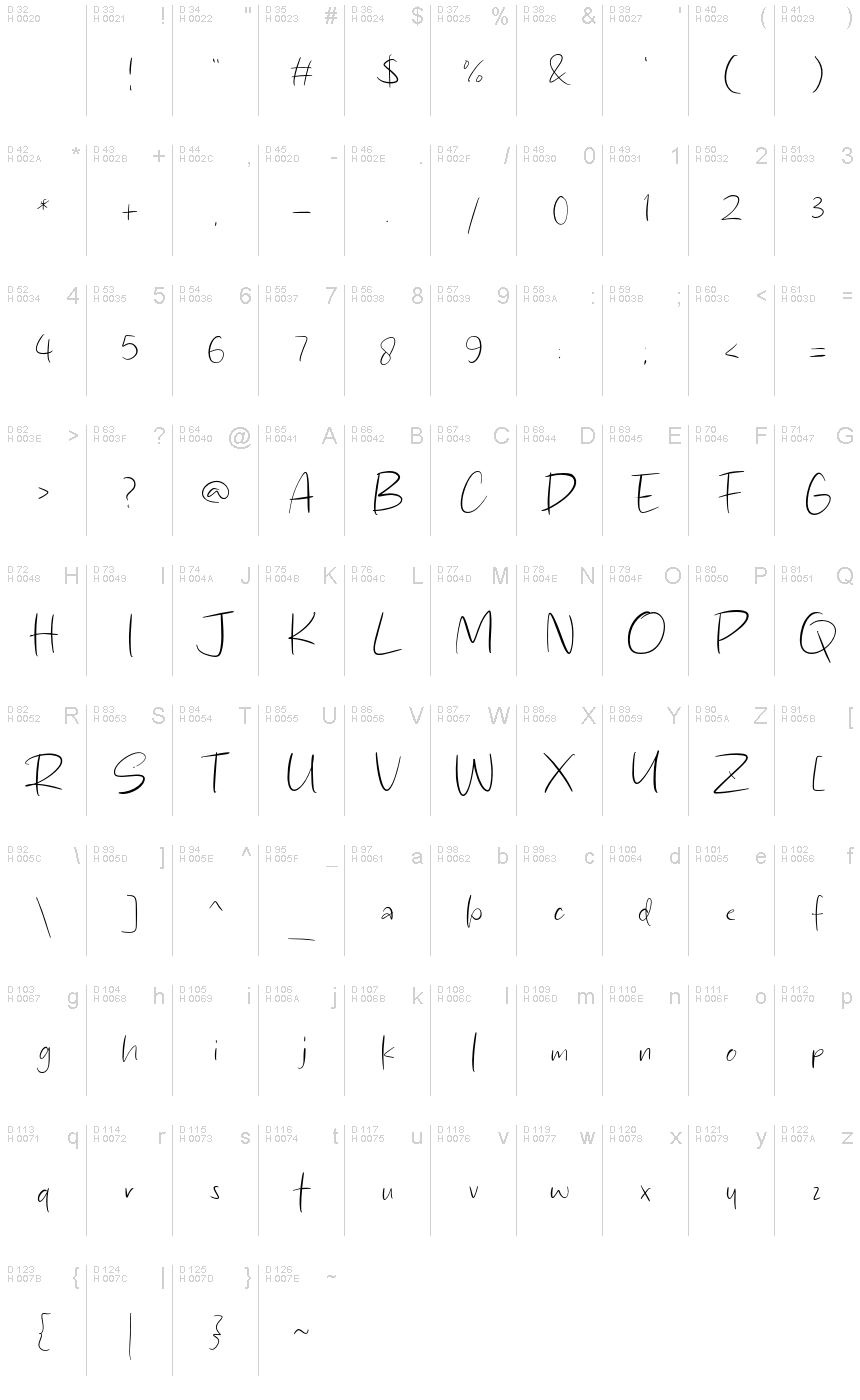
Coal Straight
Coal Straight, a captivating handwritten font crafted by MJType, exudes a captivating sense of authenticity and charm. Its light, fluid strokes evoke a heartfelt, personal touch, inviting the viewer to immerse themselves in its expressive forms. The natural flow and organic variations within the letterforms create a distinct, artisanal character, capturing the essence of handcrafted design.
This versatile font lends itself seamlessly to a variety of creative applications, from branding and packaging to editorial and web design. Its versatility allows designers to infuse projects with a touch of personalized flair, whether curating a refined, artisanal aesthetic or conveying a sense of warmth and authenticity. The font's adaptability makes it a compelling choice for designers seeking to add a captivating handwritten element to their creative endeavors.